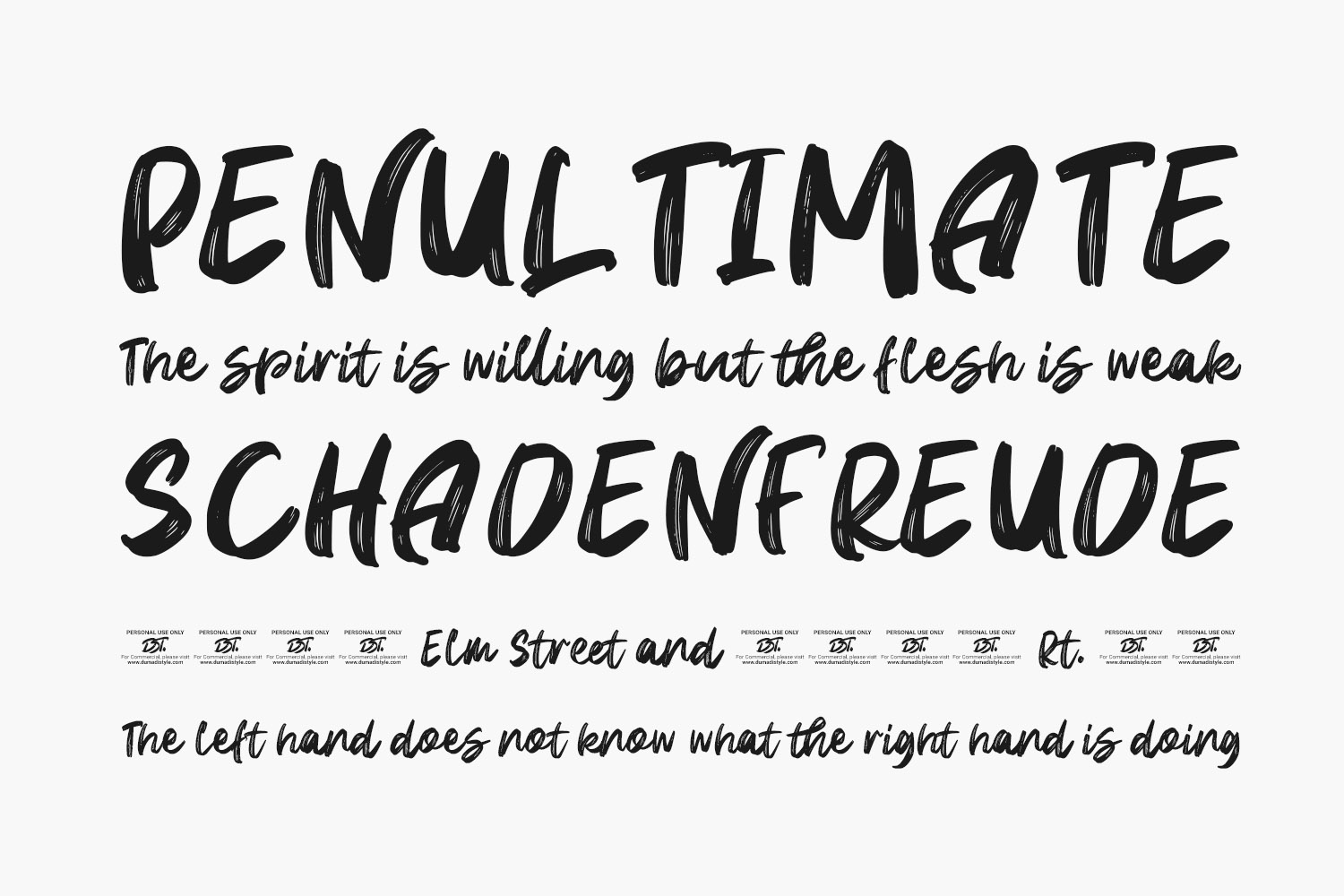
Brilliant Mastaka Free Font is a beautiful hand-brushed font. This font is reminiscent of traditional Chinese brush writing with a modern twist. This typeface is perfect for designing logos, posters, TikTok stories, as well as Instagram captions, and YouTube thumbnails. Brilliant Mastaka Free Font is a demo and free for personal use only. Please purchase the full version for commercial use.